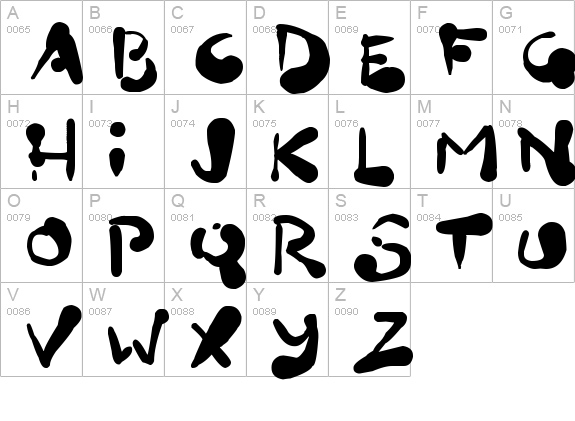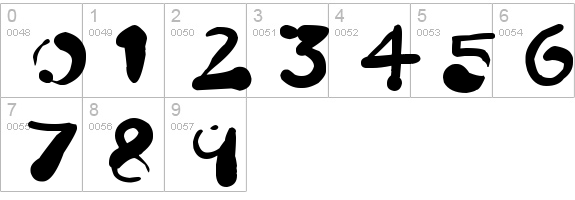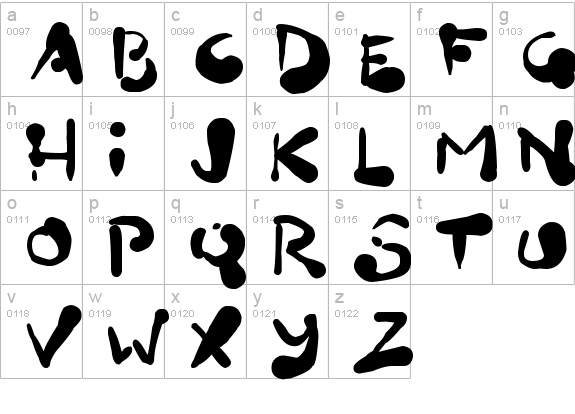
Paint Blobs Font Details
Paint Blobs is a free for personal use font in the Fancy > Comic category, designed by Darrell Flood. It has been downloaded 29 times and is available for Windows, Mac and Linux.
Introducing the vibrant and playful Paint Blobs font! This whimsical typeface is perfect for adding a touch of creativity and fun to your projects. The unique design features charming blobs of paint that give each letter a handcrafted feel.